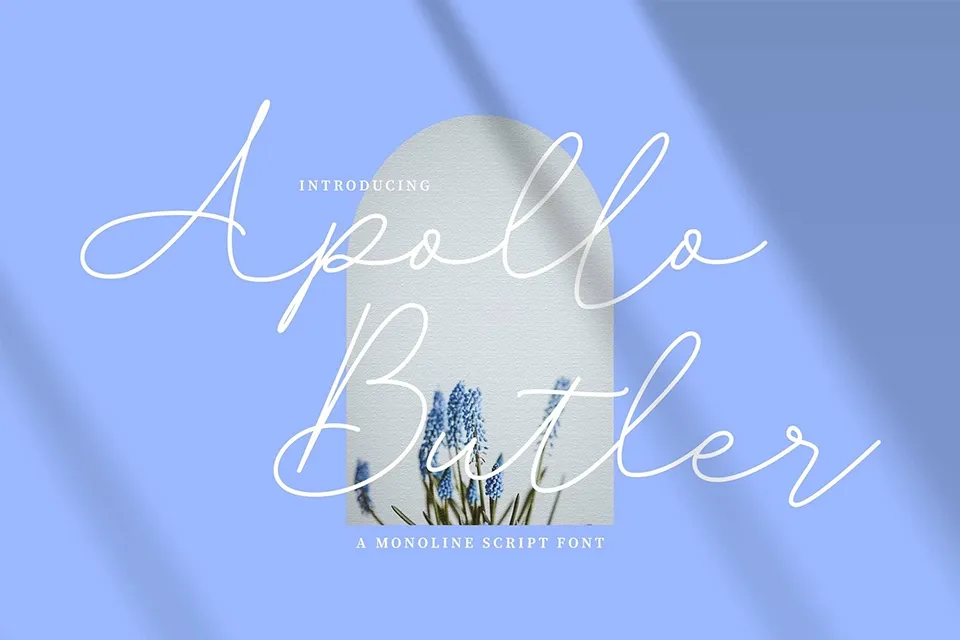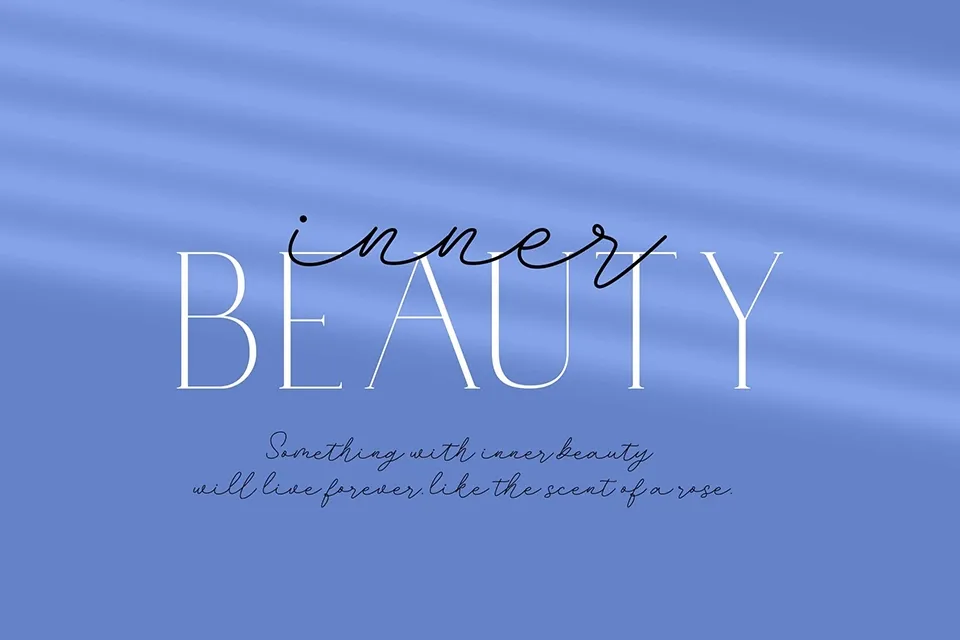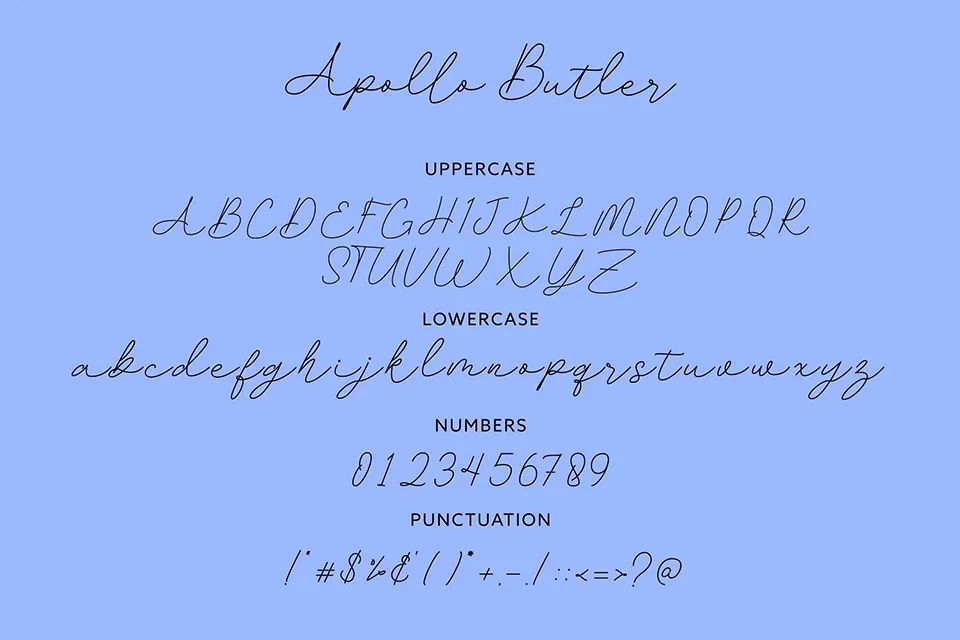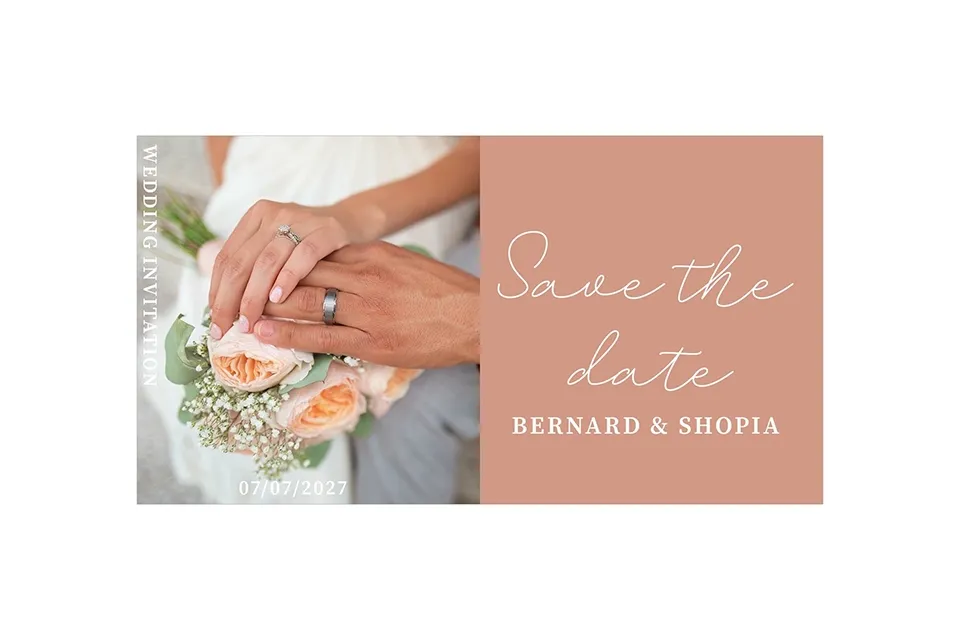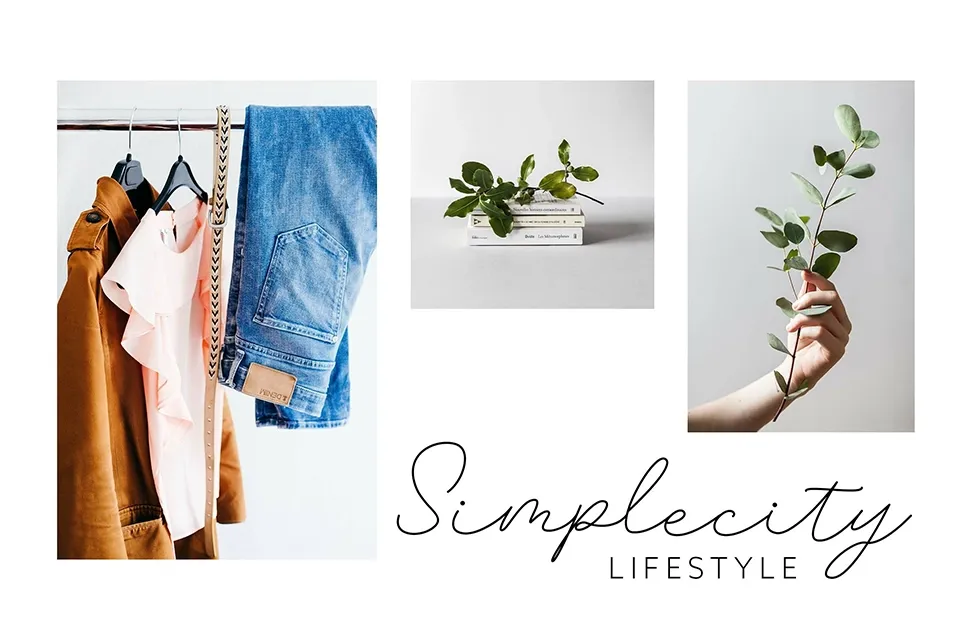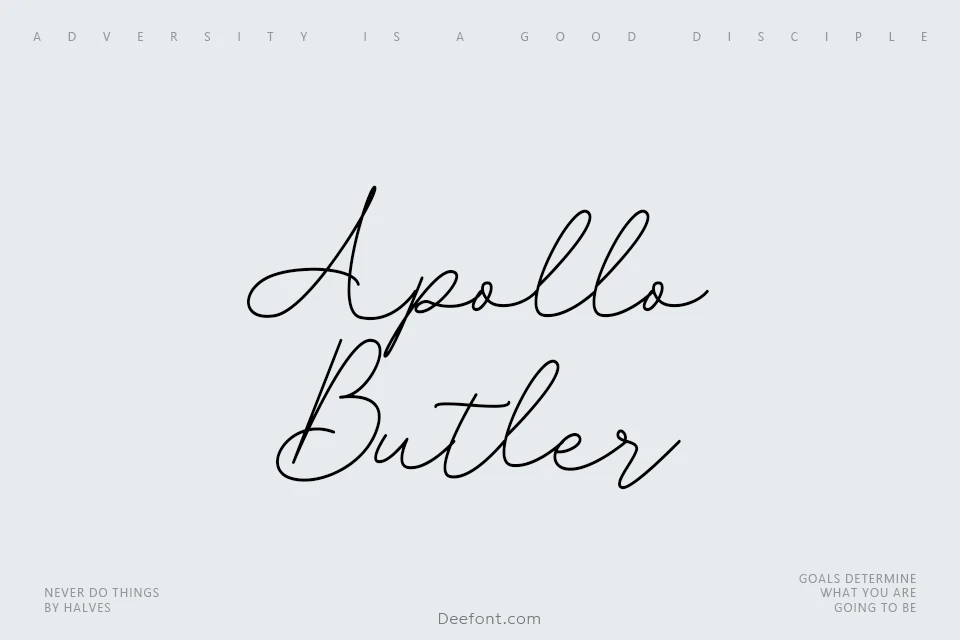
Apollo Butler Font
Apollo Butler Font is an elegant and refined monoline script font, featuring delicate curves and ultra-thin lines. Designed to bring a sophisticated handwritten touch to your branding projects, logos, wedding invitations, social media posts, advertisements, product packaging, and more, Apollo Butler stands out with its clean, consistent strokes and modern appeal. This font is perfect for any design that requires a sleek, personal, and stylish script aesthetic.